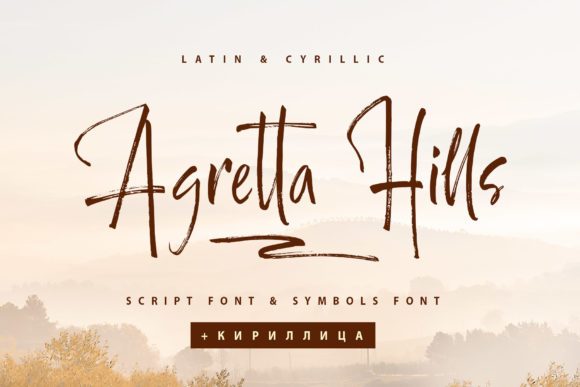
Discover the alluring Agretta Hills Font, a stunning creation by the renowned Iradvilyuk. Immerse yourself in its enchanting script style, meticulously crafted to evoke the essence of Russian heritage. Each stroke exudes a touch of casual elegance and a hint of playful brushwork.
Indulge in its versatility as it seamlessly adapts to a myriad of branding endeavors. Envision your logo adorned with the graceful curves of Agretta Hills, making an unforgettable first impression. Unleash your creativity on t-shirt designs, where the font's dynamic character adds a touch of flair. Elevate your sports designs with its rugged charm, capturing the essence of competition and passion.
Beyond its adaptability, Agretta Hills possesses an intrinsic beauty that transcends its purpose. Its presence on invitations and wedding stationery adds a touch of sophistication, setting the tone for a memorable occasion. Let the font's curves flow effortlessly on posters and flyers, captivating the attention of your audience with its unique charm.
But what truly sets Agretta Hills apart is its ability to evoke emotion. Its inviting strokes seem to whisper secrets, creating a connection between you and your audience. The font's timeless appeal ensures that your designs will stand the test of time, becoming cherished keepsakes that convey your message with grace and authenticity.
So, embark on a typographic adventure with Agretta Hills. Let its captivating allure enhance your branding endeavors and leave an everlasting impression on your audience. With its exceptional design and versatility, Agretta Hills is not just a font; it's a gateway to endless creative possibilities.